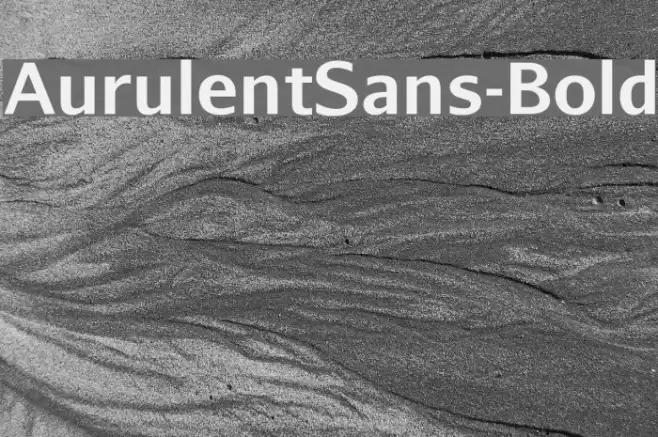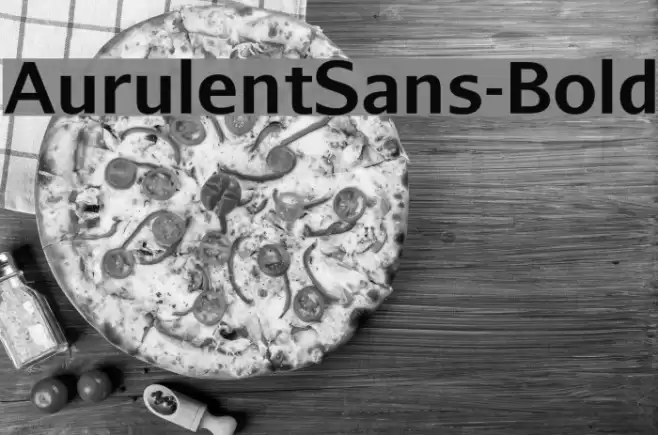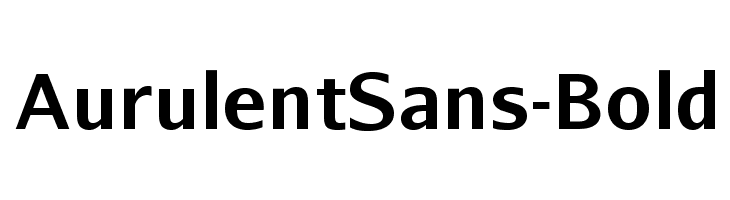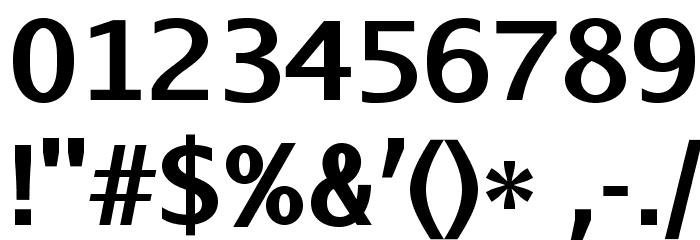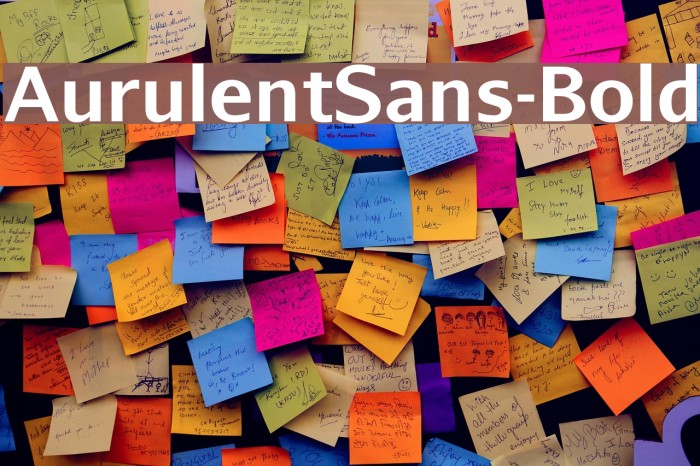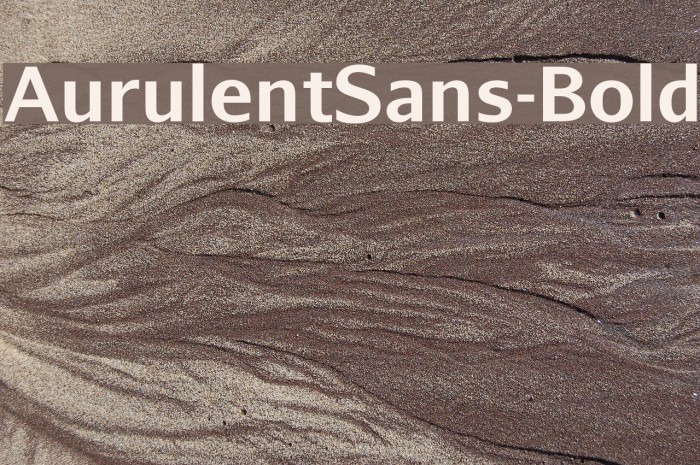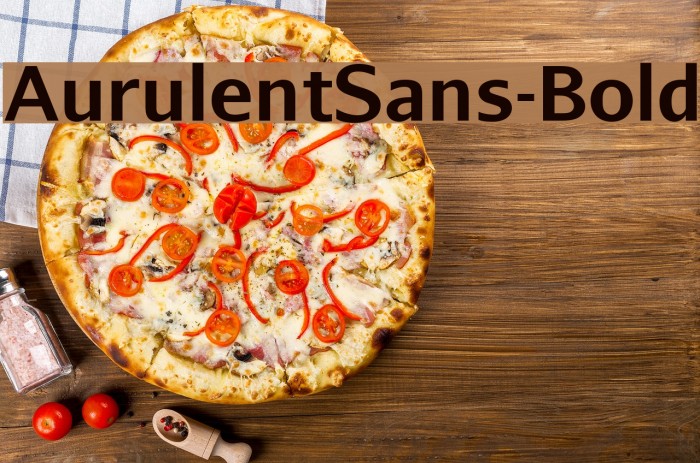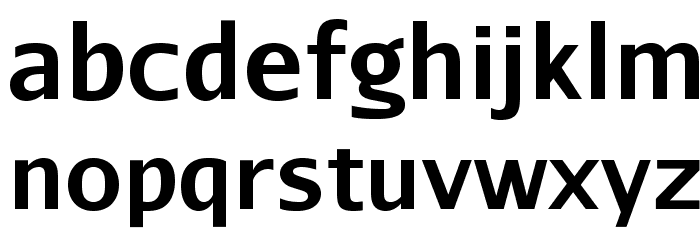
AurulentSans-Bold Font
AurulentSans-Bold Description
This font features a clean and modern sans-serif style with bold, uniform strokes that convey a sense of clarity and strength. The characters are well-proportioned, with a consistent weight that enhances readability. The uppercase letters are slightly taller than the lowercase, providing a balanced visual hierarchy. The numerals are distinct and easy to distinguish, making them suitable for data presentation. Special characters are designed with the same boldness, ensuring they stand out without overpowering the text. Overall, this font is versatile and suitable for a variety of design applications.
A bold, modern sans-serif font with clean lines and excellent readability from Sans Serif fonts.